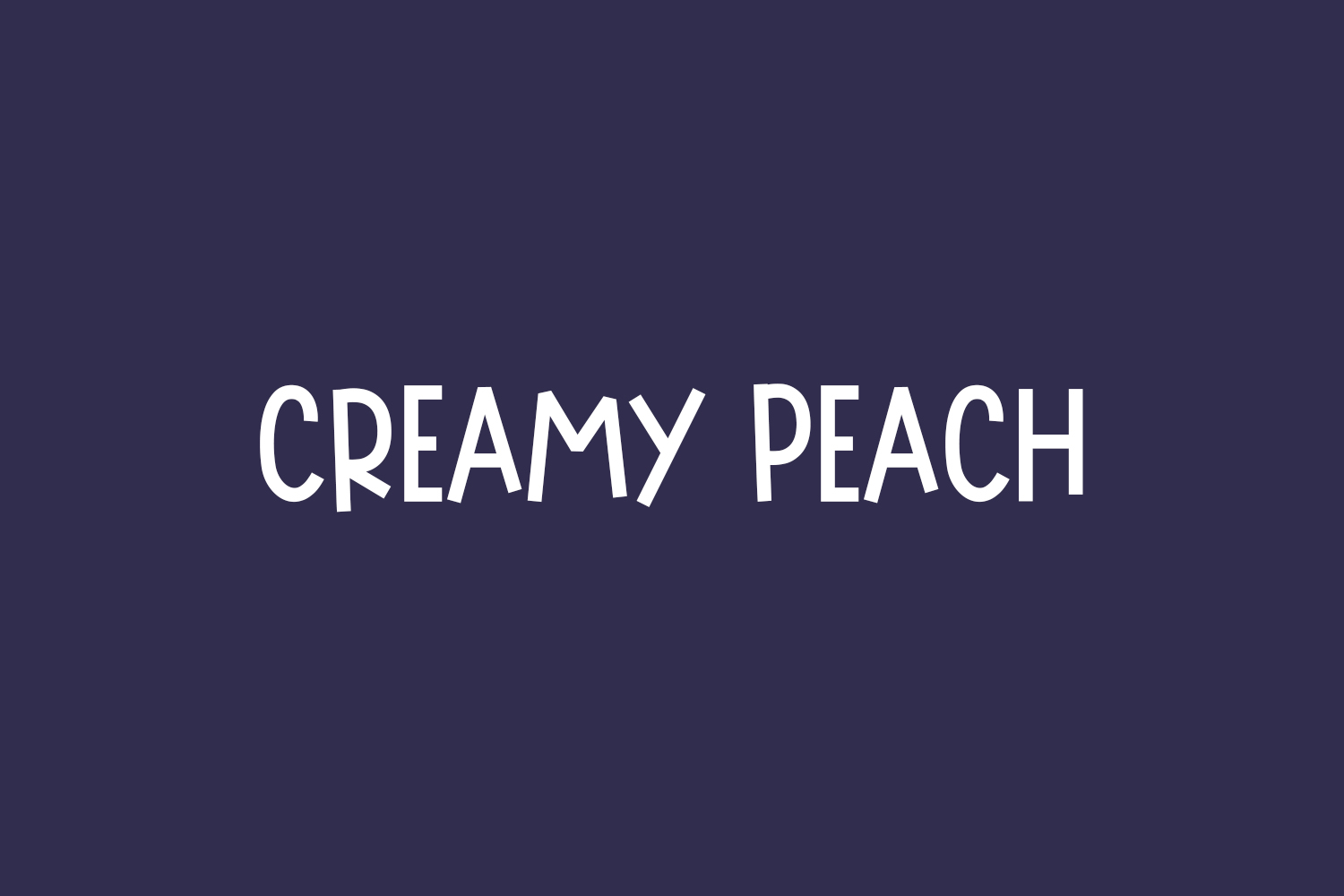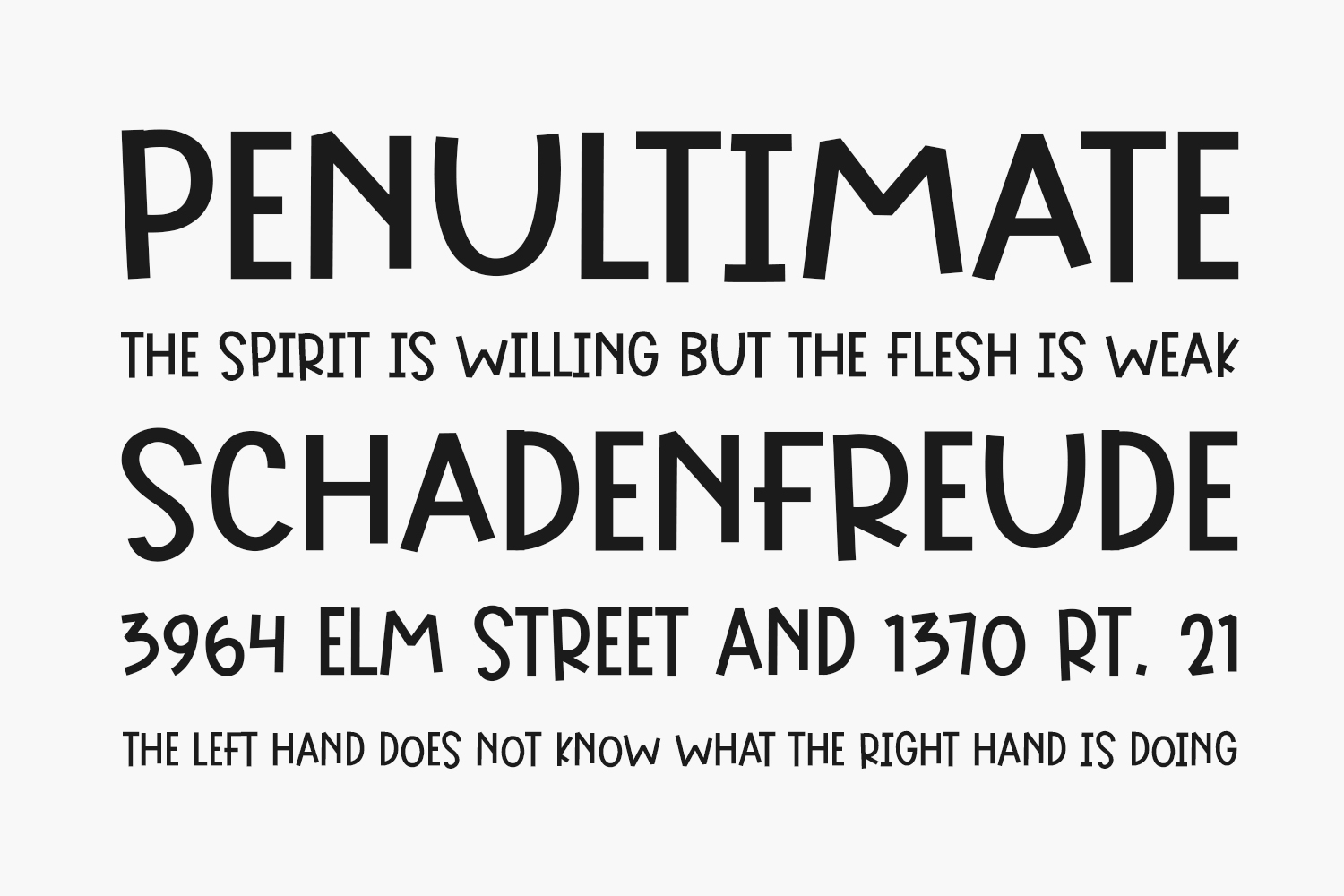
Creamy Peach Free Font is a simple and playful display font. Whether you’re using it for crafting, digital designing, presentations or greeting card making, it’s perfect. Creamy Peach Free Font was designed by ONG Type and is free for personal use only. Please purchase the full version for commercial use.